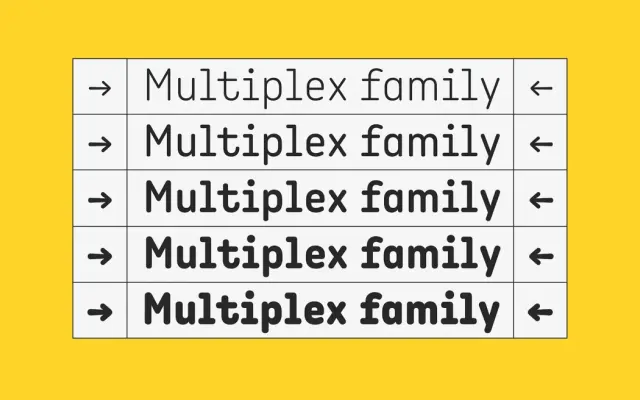
A rounded, condensed sans with multiplexed widths across all five weights, allowing weight changes without triggering text reflow.
Multiplexed spacing means every weight occupies identical horizontal space, so switching between Light and Extra Bold mid-layout causes no reflow. The rounded terminals and condensed proportions give it an approachable, slightly informal character suited to packaging, app interfaces and information graphics. Available as a variable font with matching italics across all five weights.
A rounded sans serif with condensed proportions and a monospaced visual rhythm; the consistent multiplexed widths across styles give it an unusual functional character closer to a geometric rounded sans than a humanist one.